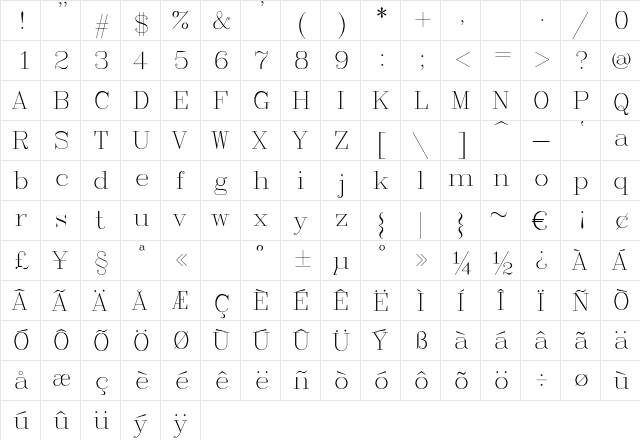
RomanC Regular
Design Context for RomanC Typeface
RomanC offers clean, dependable letterforms without strong stylistic allegiance, making it a practical choice for designers who need flexibility.